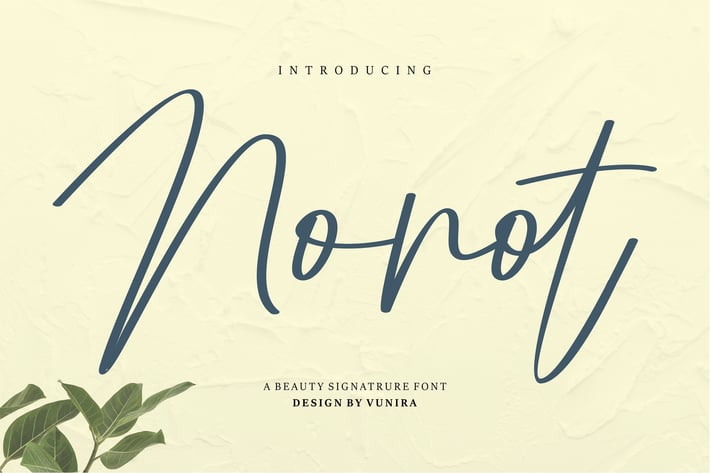
Nonot | A Beauty Signature Font
Nonot | A Beauty Signature Font with a calligraphy style, So beautiful on invitation like greeting cards, branding materials, business cards, quotes, posters, and more!